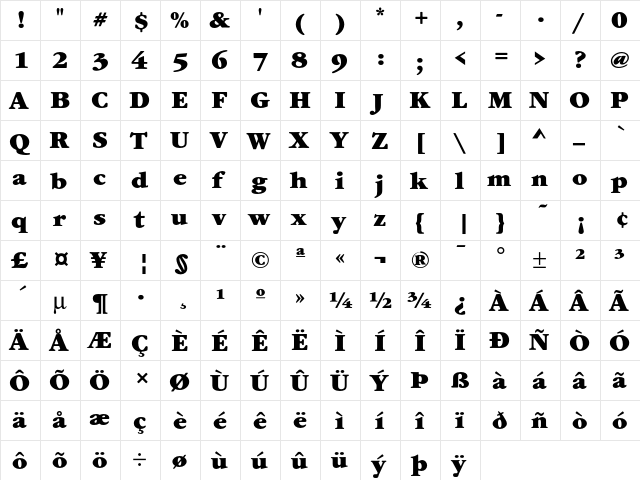
GaramItcTUlt Regular
Design Context for GaramItcTUlt Typeface
GaramItcTUlt is a composed and adaptable typeface that performs quietly and consistently across a wide range of design contexts.